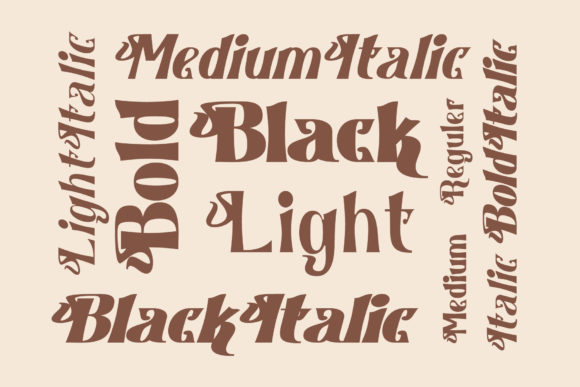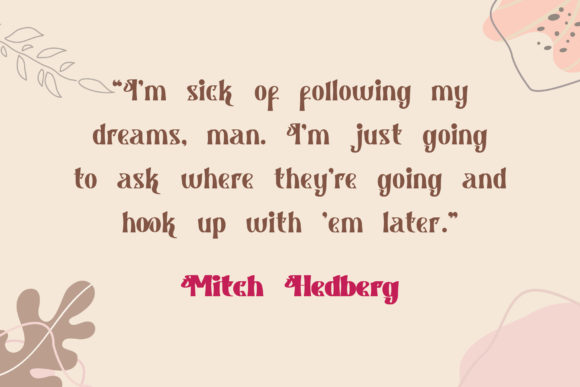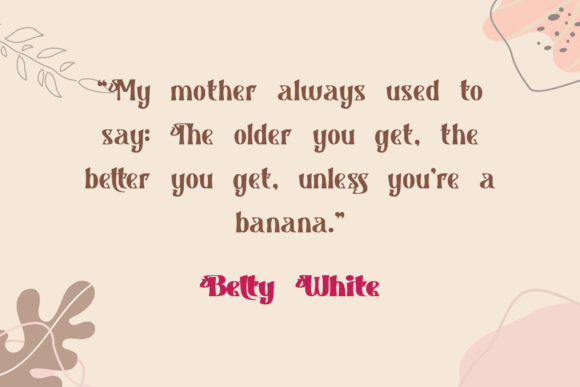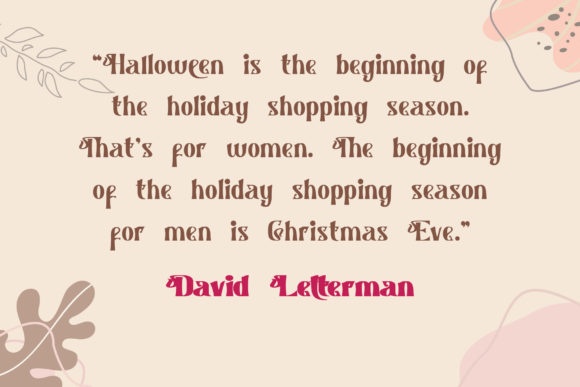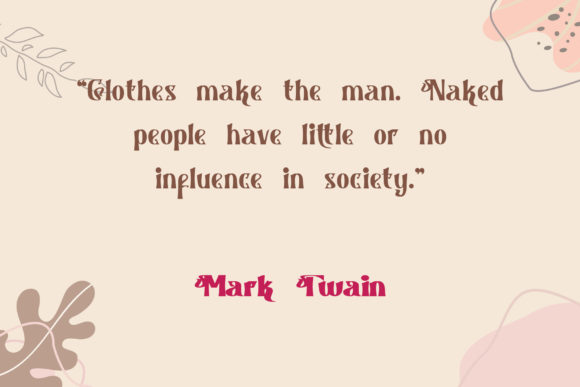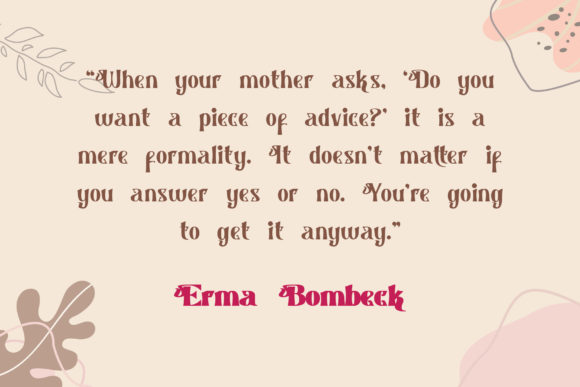
Introduction to Qamassan Font
Have you ever been working on a creative project, pouring your heart and soul into it, only to realize that something’s missing? That spark, that je ne sais quoi, that oomph? For many designers, that missing piece is often a unique and eye-catching font that sets their project apart from the rest.
That’s where the Qamassan Font comes in – a bohemian vintage typeface that’s equal parts retro, bold, and playful. Its nostalgic charm is perfect for designers looking to add a dash of whimsy to their project, and its high-quality design ensures that it will stand out from the crowd.
As a valuable design resource, the Qamassan Font offers a free download with a transparent background, making it easy to incorporate into any project. Whether you’re working on a vintage-inspired logo or a creative campaign, this font is sure to bring a smile to your face and a touch of magic to your design.
Key Features of Qamassan Font
- Unique and creative design for various creative projects, making it a valuable design resource.
- Multi-language support, making it a versatile design resource for global creative projects.
- Designed to be highly legible and visually appealing, with a unique aesthetic that sets it apart from other fonts.
Honest Review: Qamassan Font
As a designer, I’m always on the lookout for high-quality design resources that can elevate my creative projects. The Qamassan Font is one such resource that I’ve been experimenting with, and I’m excited to share my honest review with you.
What works well: ✨ The Qamassan Font has a unique and modern design that’s perfect for creating eye-catching visuals. Its clean lines and sleek typography make it an excellent choice for logos, branding materials, and digital products. I also appreciate the fact that it’s a free download, which is a major plus for designers on a budget.
What I found useful was the font’s versatility. I was able to use it for both web and print projects, and it performed well in various applications.
What could be improved: ⚠️ The Qamassan Font lacks a transparent background option, which can be a limitation for designers who need to create designs with custom backgrounds.
Overall, I’m impressed with the Qamassan Font. It’s a high-quality design resource that’s perfect for designers looking to add a touch of modernity to their creative projects. While it may have some limitations, I believe it’s still a valuable addition to any design arsenal.
I’d definitely recommend the Qamassan Font to fellow designers, especially those working on a budget. With its unique design and versatility, it’s a great resource to have in your toolkit.
- Unique and modern design
- High-quality typography
- Perfect for logos, branding materials, and digital products
Tips for Getting the Most Out of Qamassan Font
Experiment with different font sizes and styles to find the perfect combination for your design. Use the font’s unique features to create a cohesive and visually appealing design. Don’t be afraid to try new things and push the boundaries of your creative project.
The Qamassan Font is perfect for creating unique and eye-catching designs for logos, branding, and marketing materials. It’s also great for use in digital art, graphic design, and typography projects. With its high-quality features and transparent background, the Qamassan Font is a valuable design resource for any creative project.